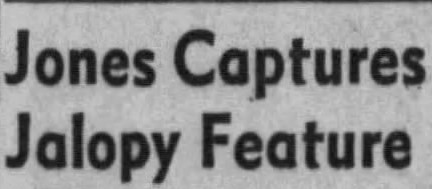
Hi! I’m new to this community. Major font fan. I’ve been trying to find out what this font is that was used by the L.A.Times for the smaller sidebar headlines in the late 1950s. Does anyone know?
At that time, copperplate printing was used, not computers, to print newspapers and magazines.
Hello, you can try: Metro Medium HPLHS from Makromedia 2002.